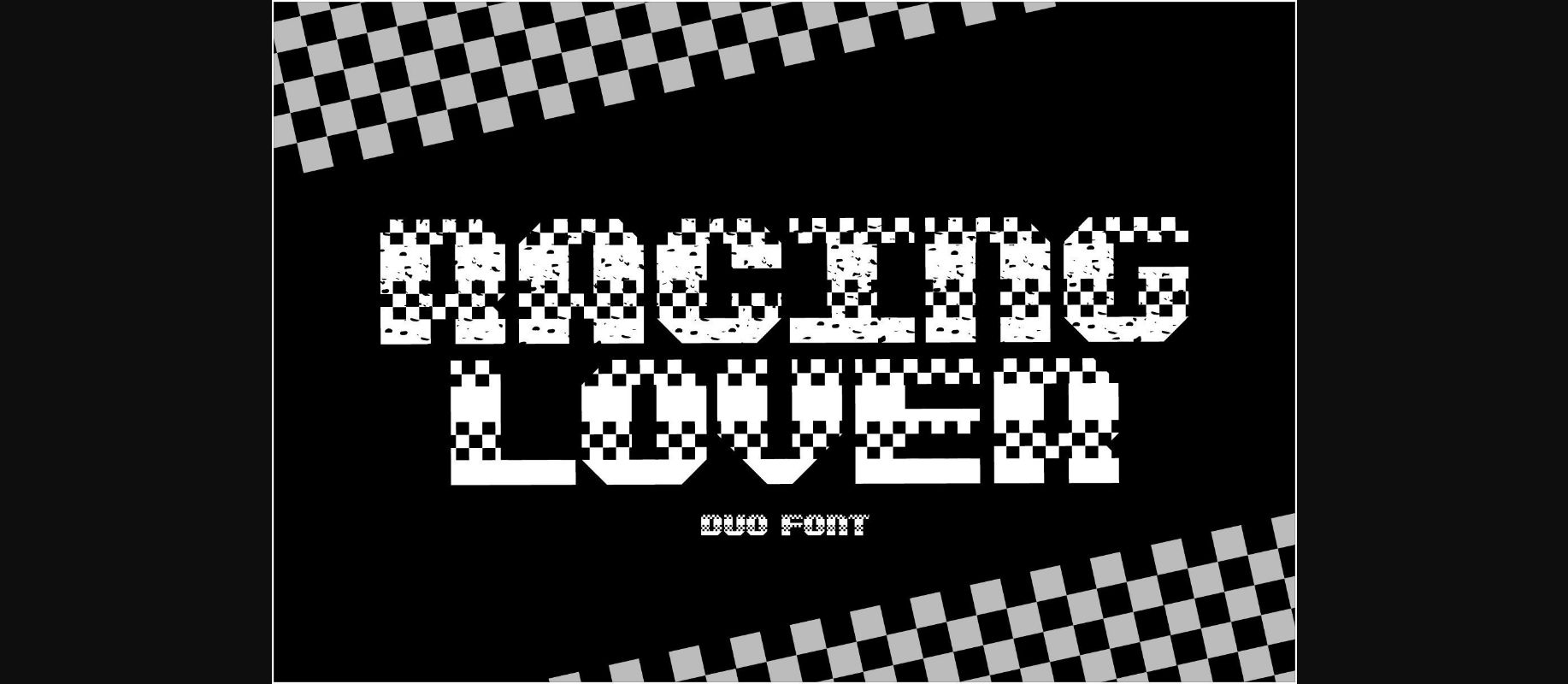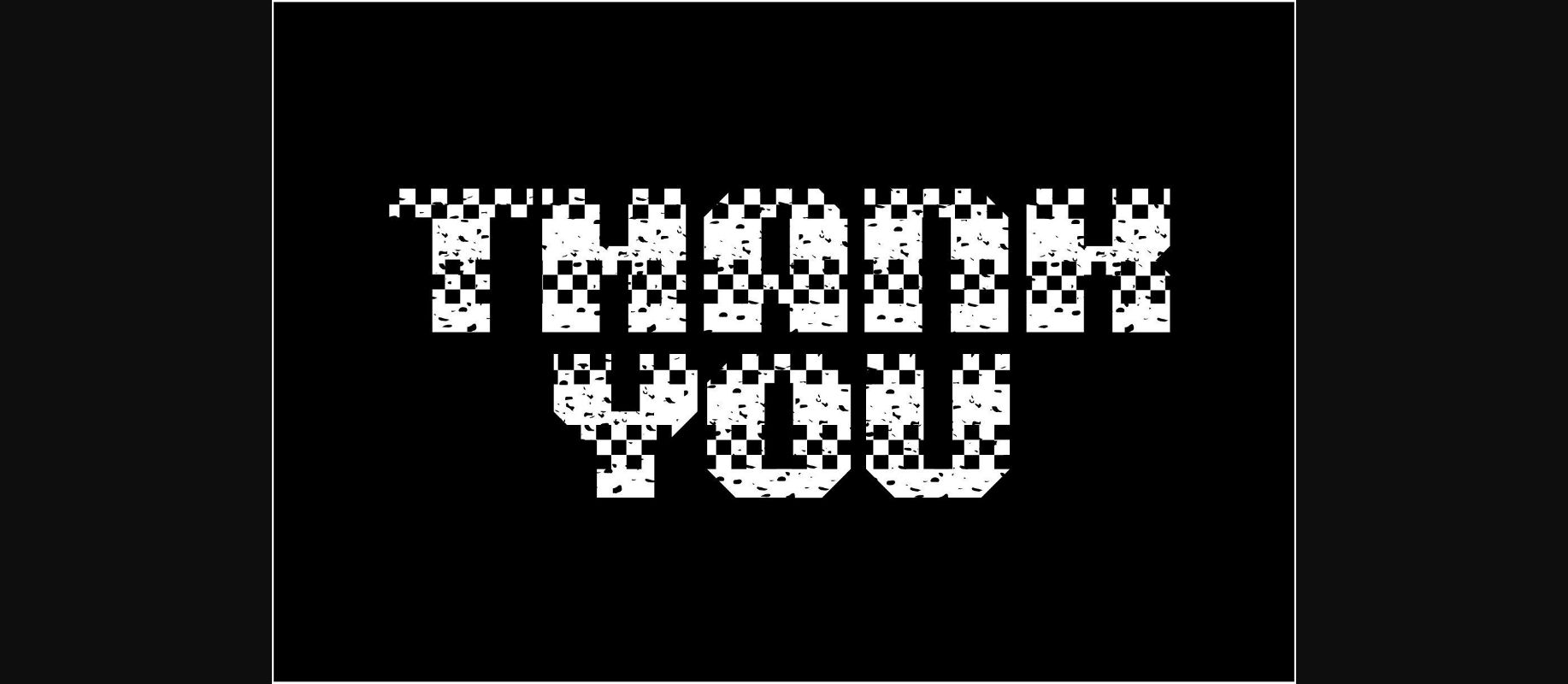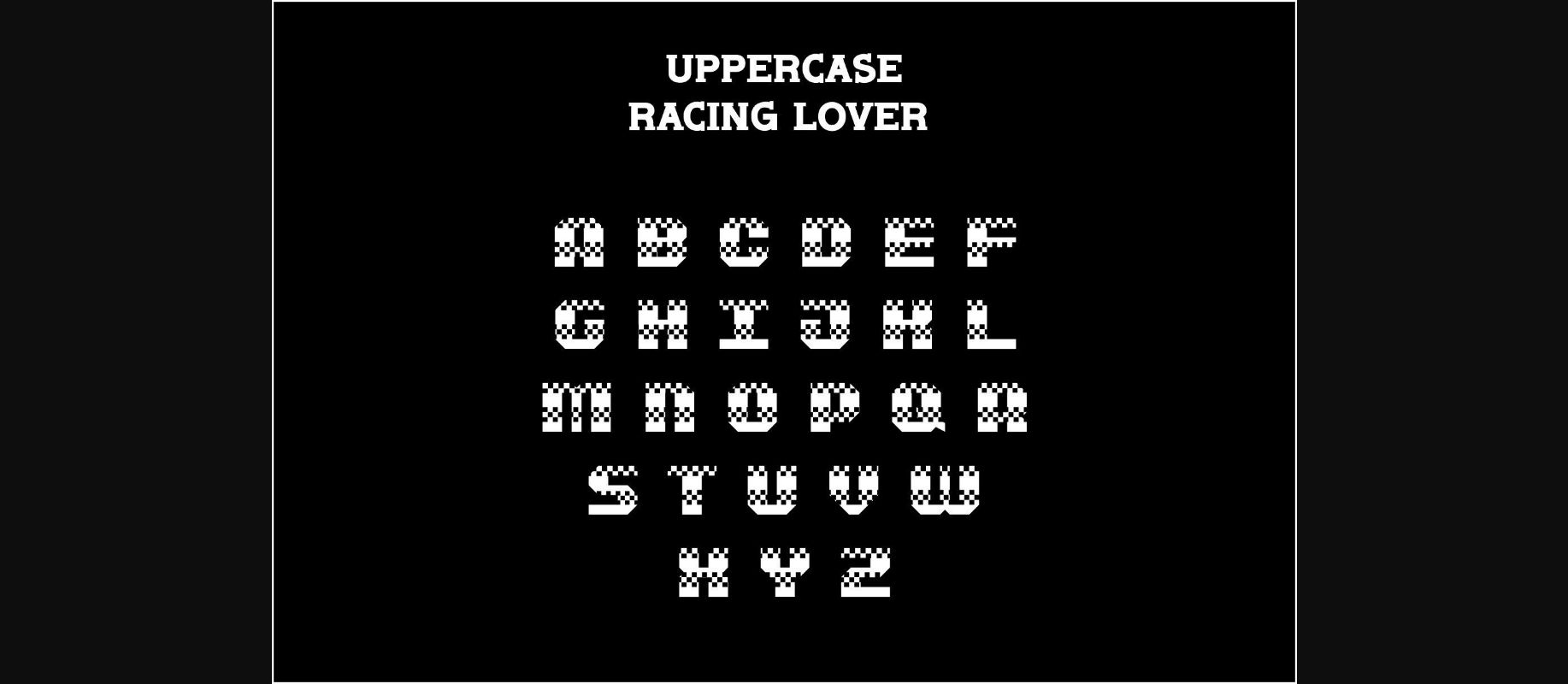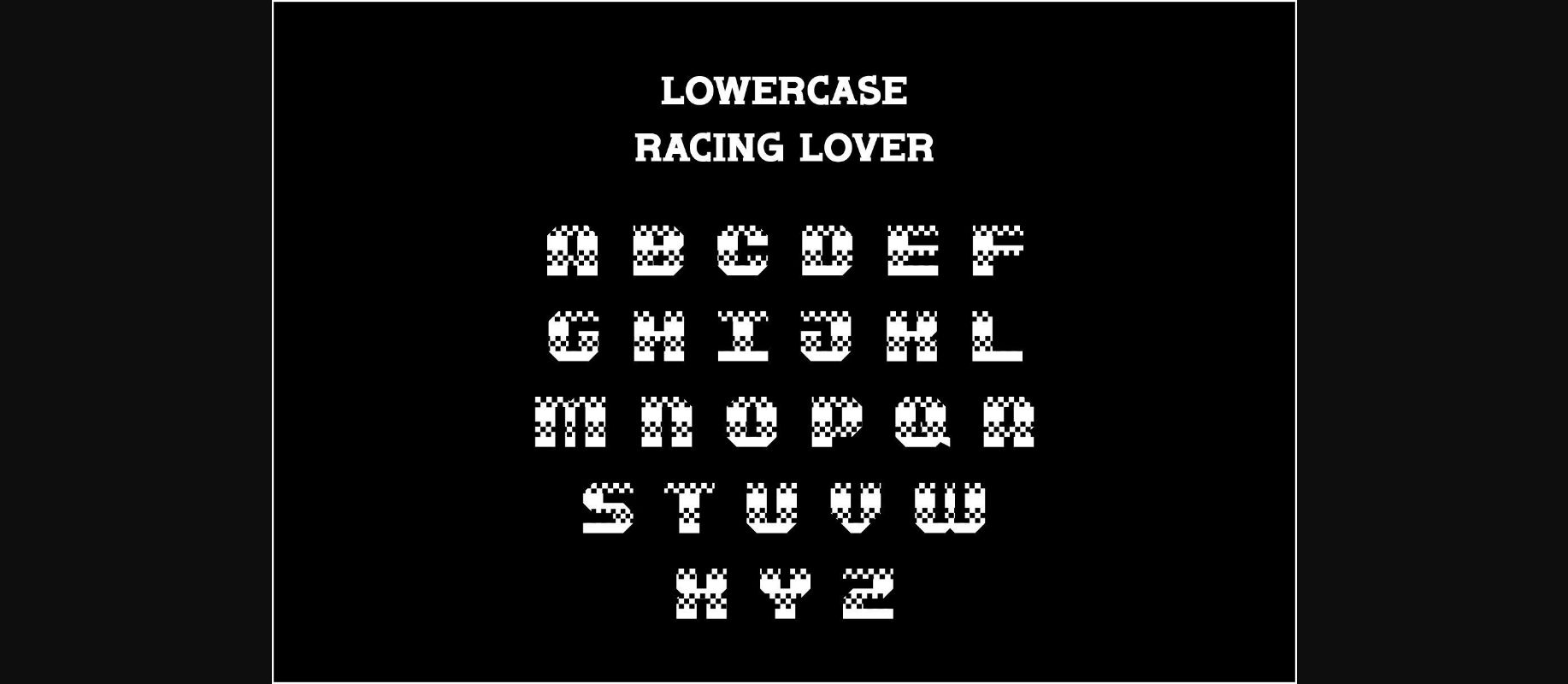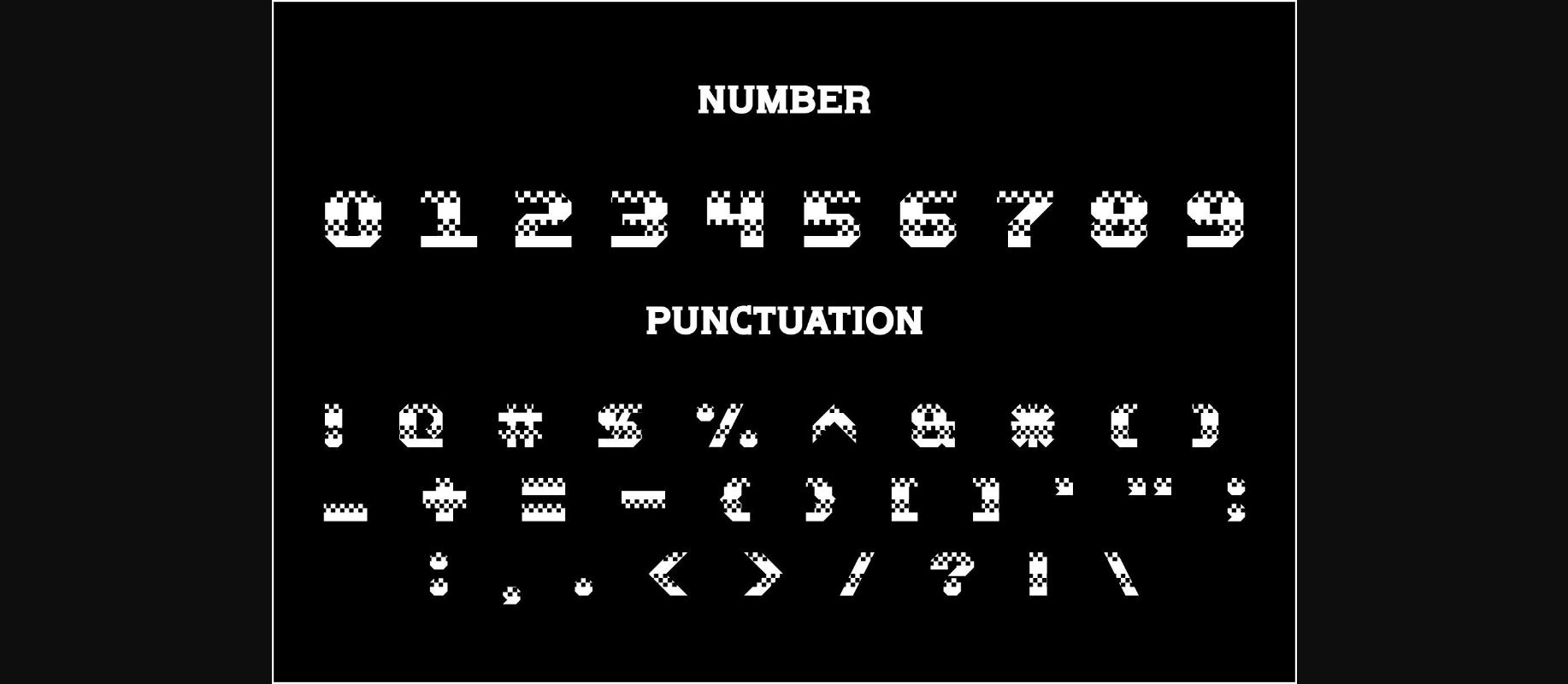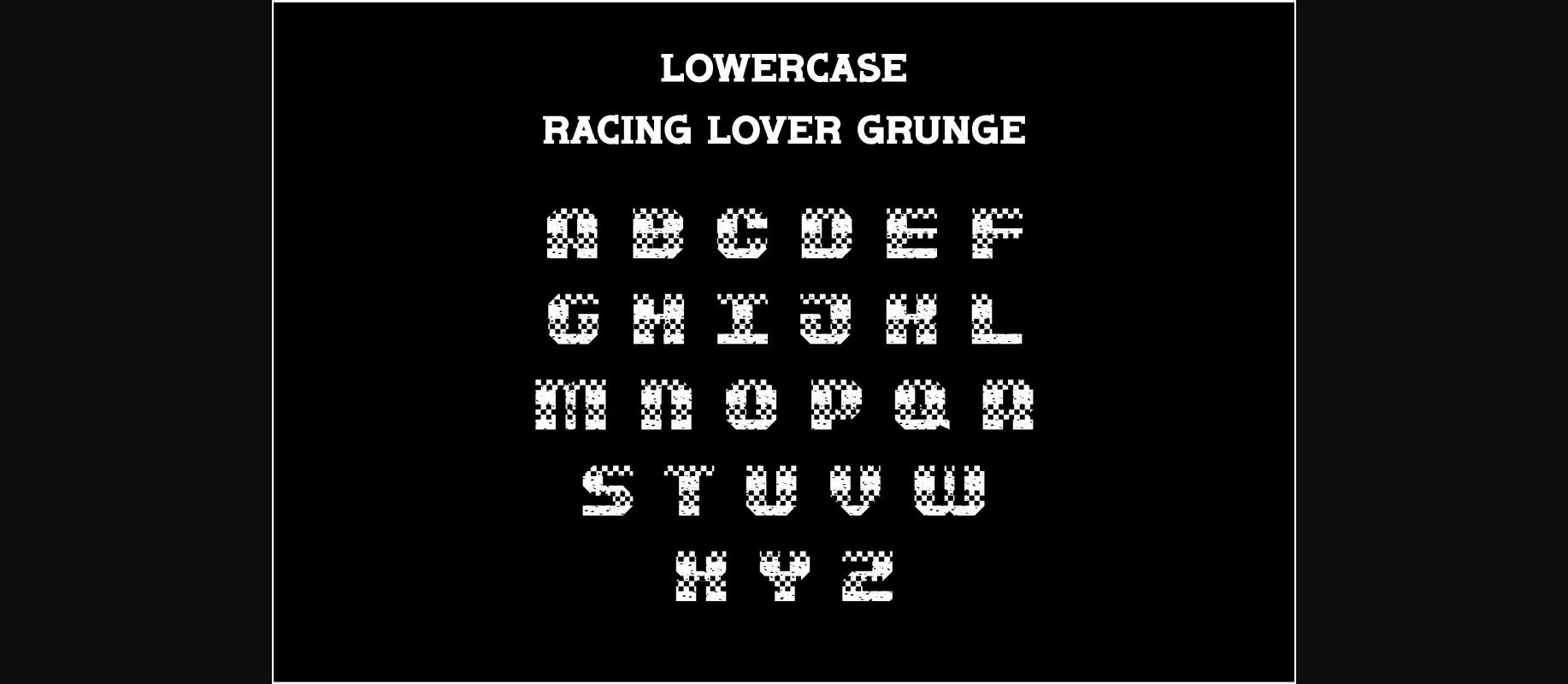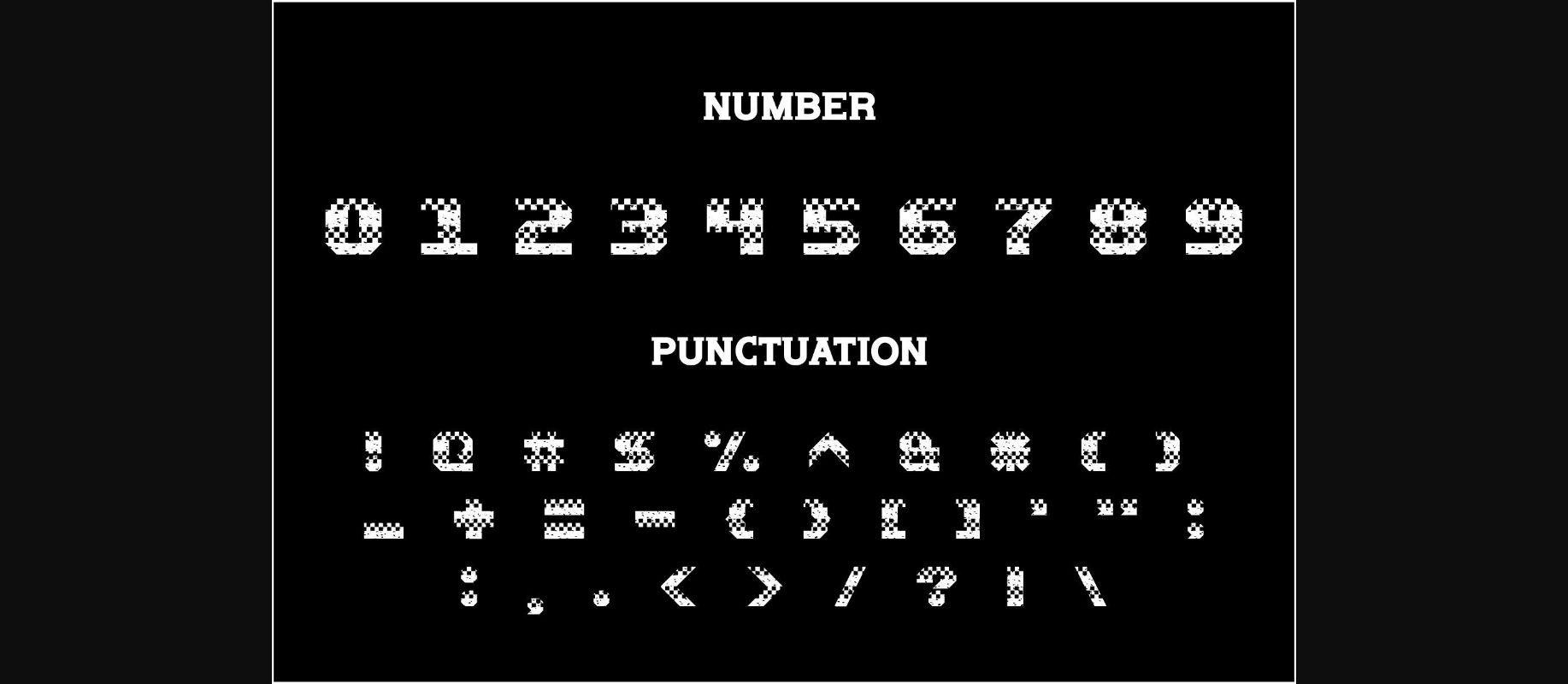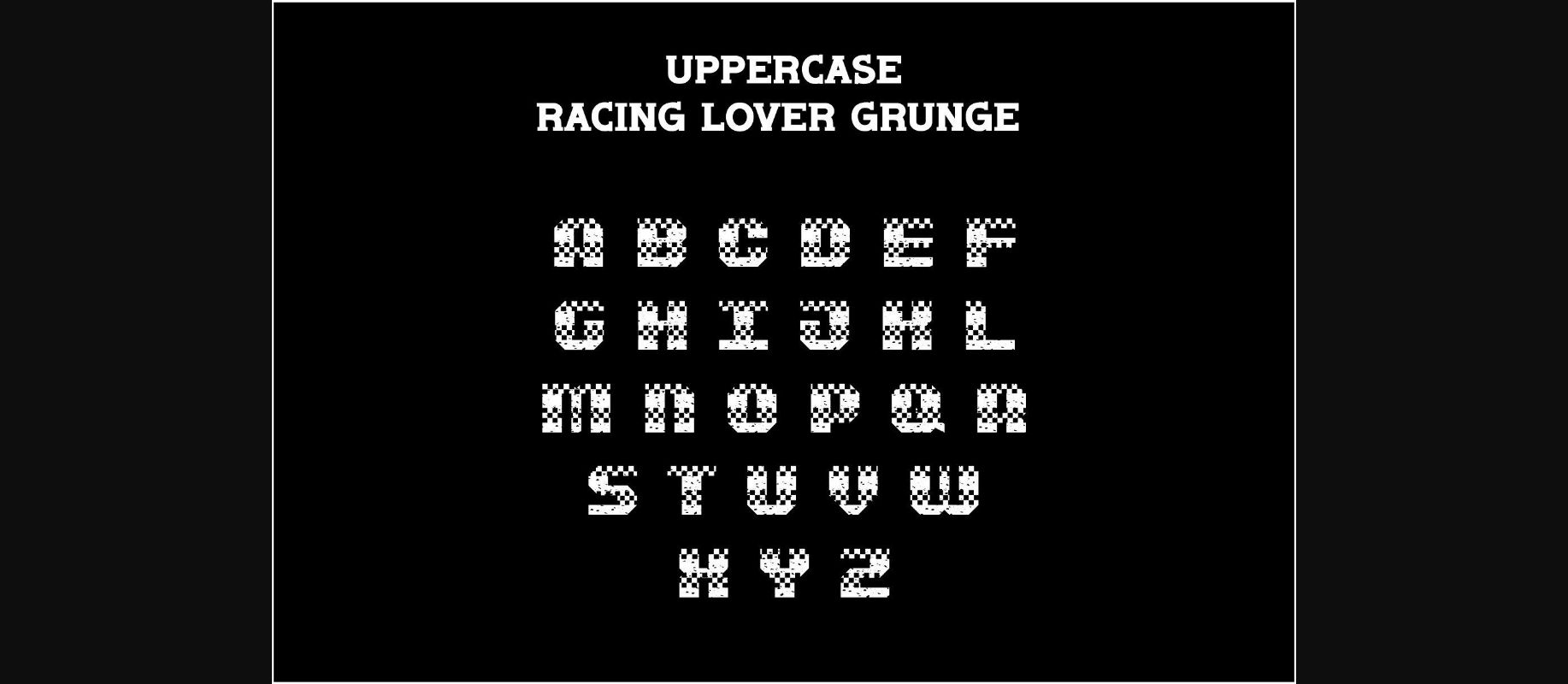
Racing Lover Font
About Racing Lover Font
Racing Lover is a cool race-styled decorative font. You can use it for various projects such as blog posts, logos, branding, ads, invitations, greeting cards, planners, photo albums, decorations, and more. Add it to any of your designs, and enjoy the results!